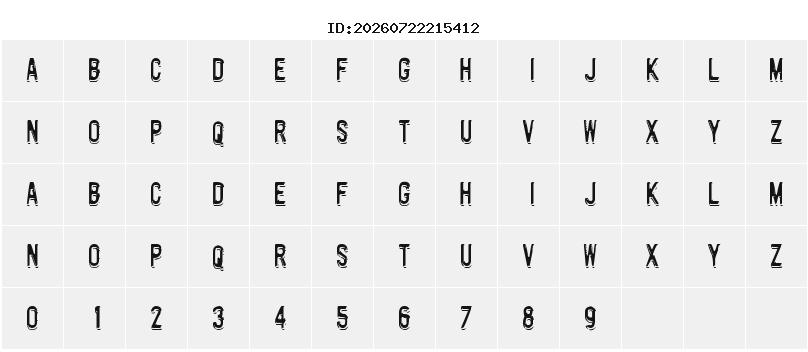
About Motorway.ttf
Motorway.ttf is a modern, elegant sans-serif font designed for ultimate readability and visual harmony. Perfect for branding, headlines, web design, and print materials.